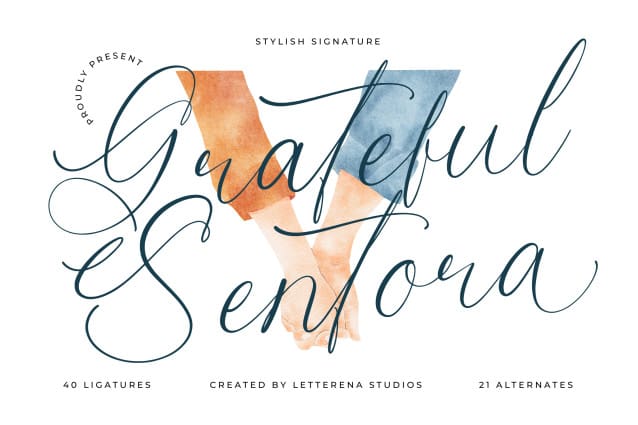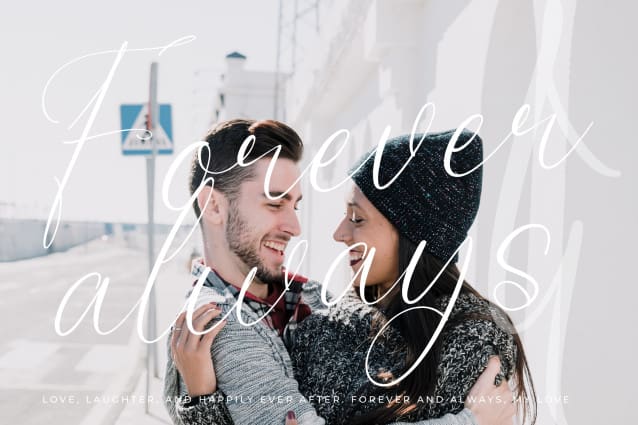
Grateful Sentora Font
Grateful Sentora Font – Stylish Signature , from Letterena, is a Luxury Script font, suitable for any projects such as: logos, branding projects, homeware designs, product packaging, mugs, quotes, posters, shopping bags, t-shirts, book covers, name card, invitation cards, greeting cards, label, photography, watermark, special events, and all your other luxury and beautiful projects that need a Luxury Script taste.